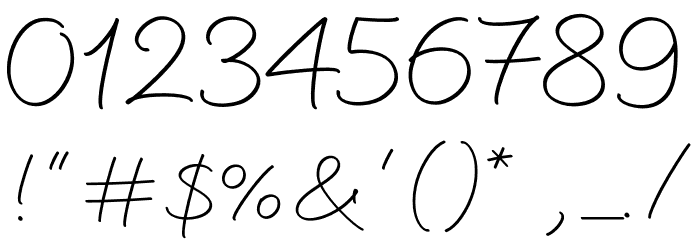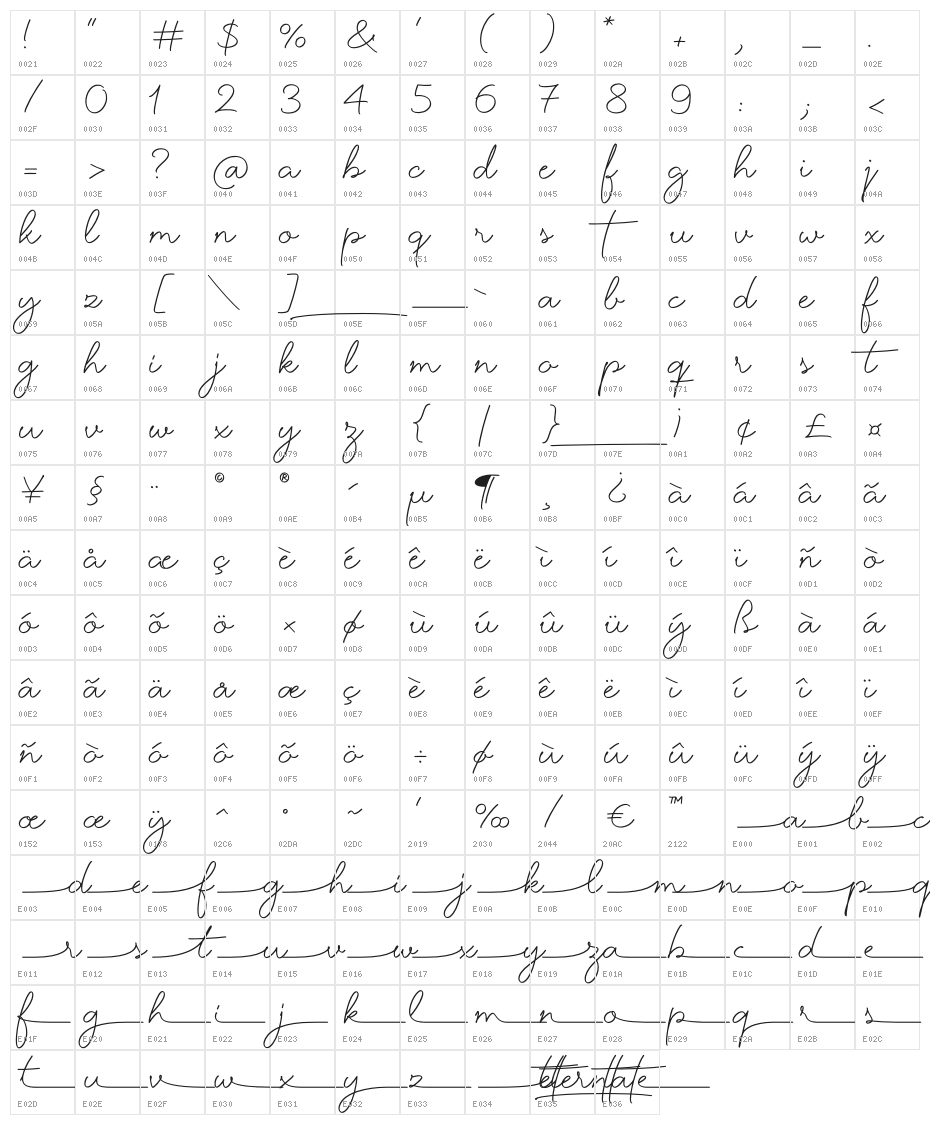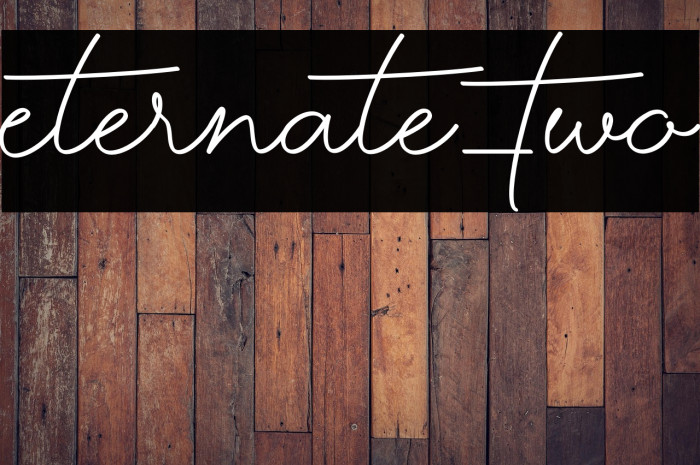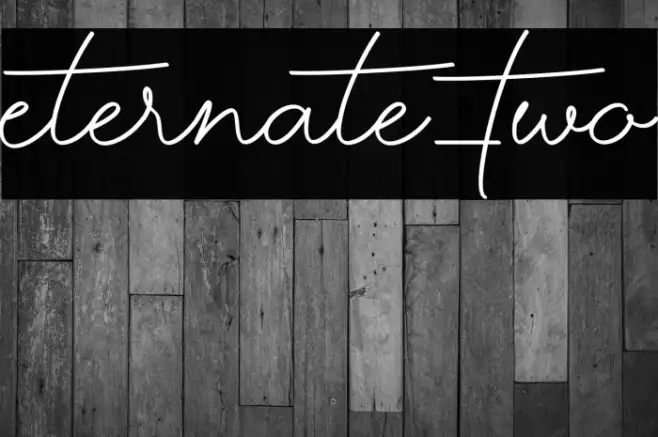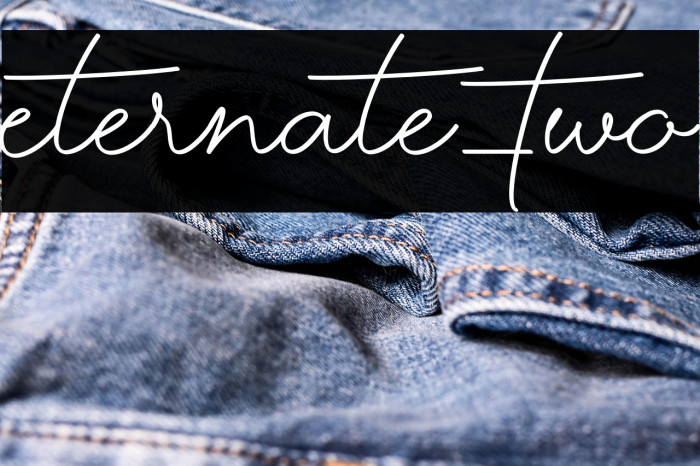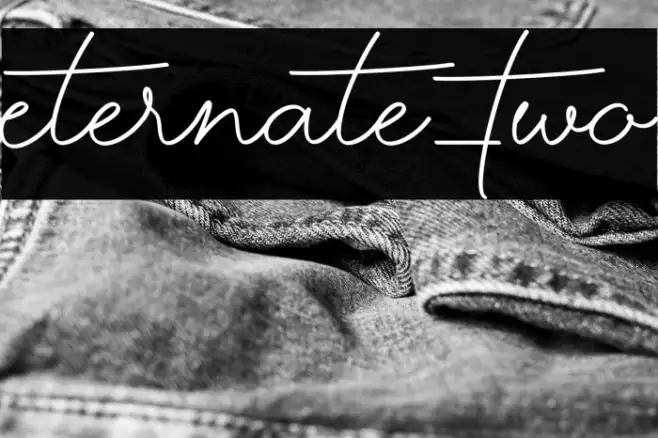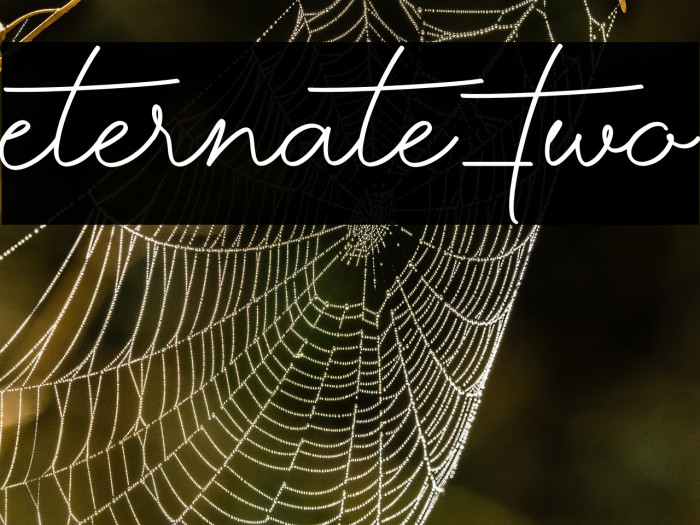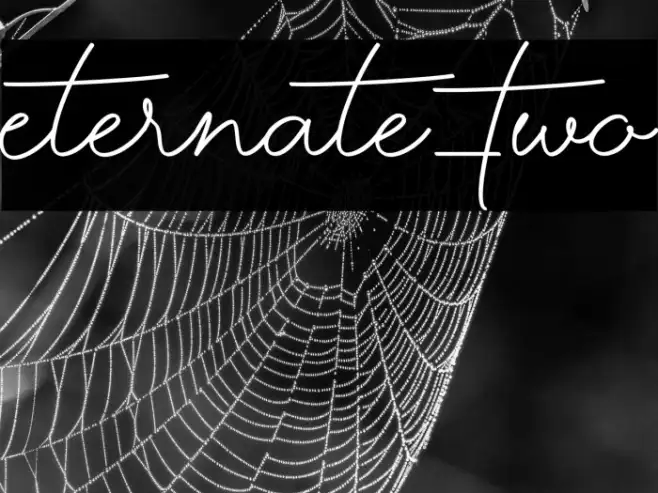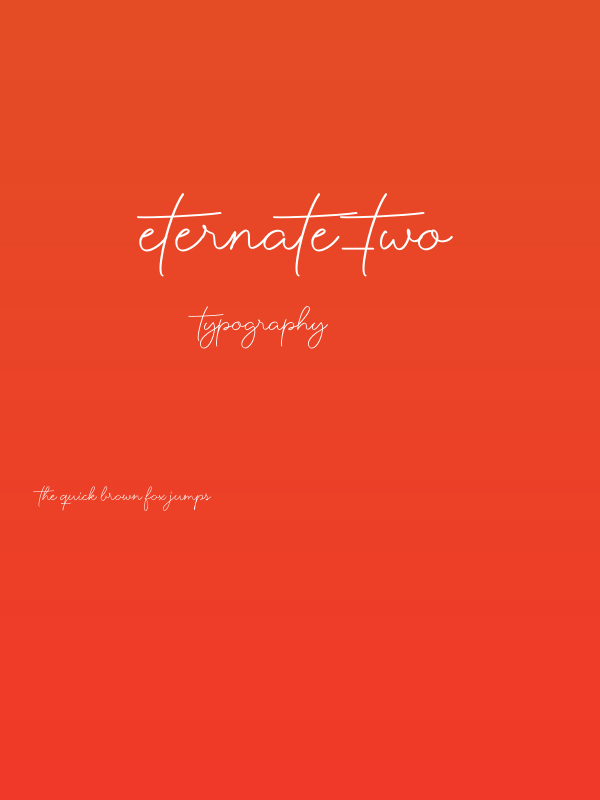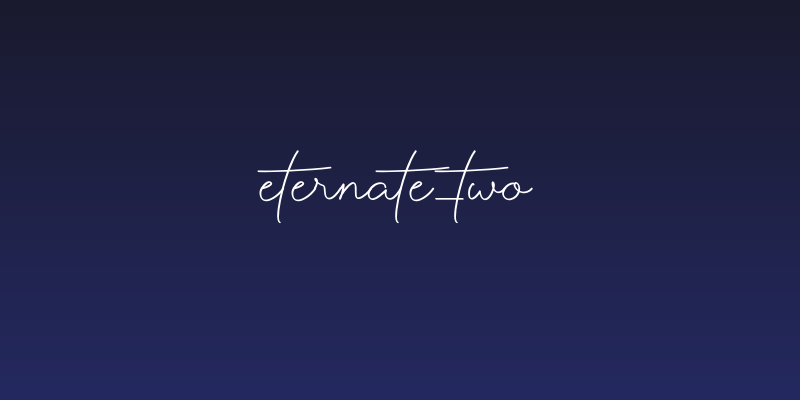
Eternate-Two Font
Eternate-Two Description
This font features a flowing, cursive style with elegant, interconnected letters that mimic natural handwriting. The characters are crafted with a consistent stroke width, giving it a smooth and harmonious appearance. The uppercase letters are slightly larger and more prominent, adding a touch of sophistication. The lowercase letters are designed with gentle curves and loops, enhancing the font's graceful and fluid nature. The numerals are clear and easy to read, maintaining the overall aesthetic. Special characters are seamlessly integrated, ensuring versatility in various design contexts.
| Proposed Projects | Ideal for wedding invitations, personal branding, greeting cards, and elegant packaging designs. |